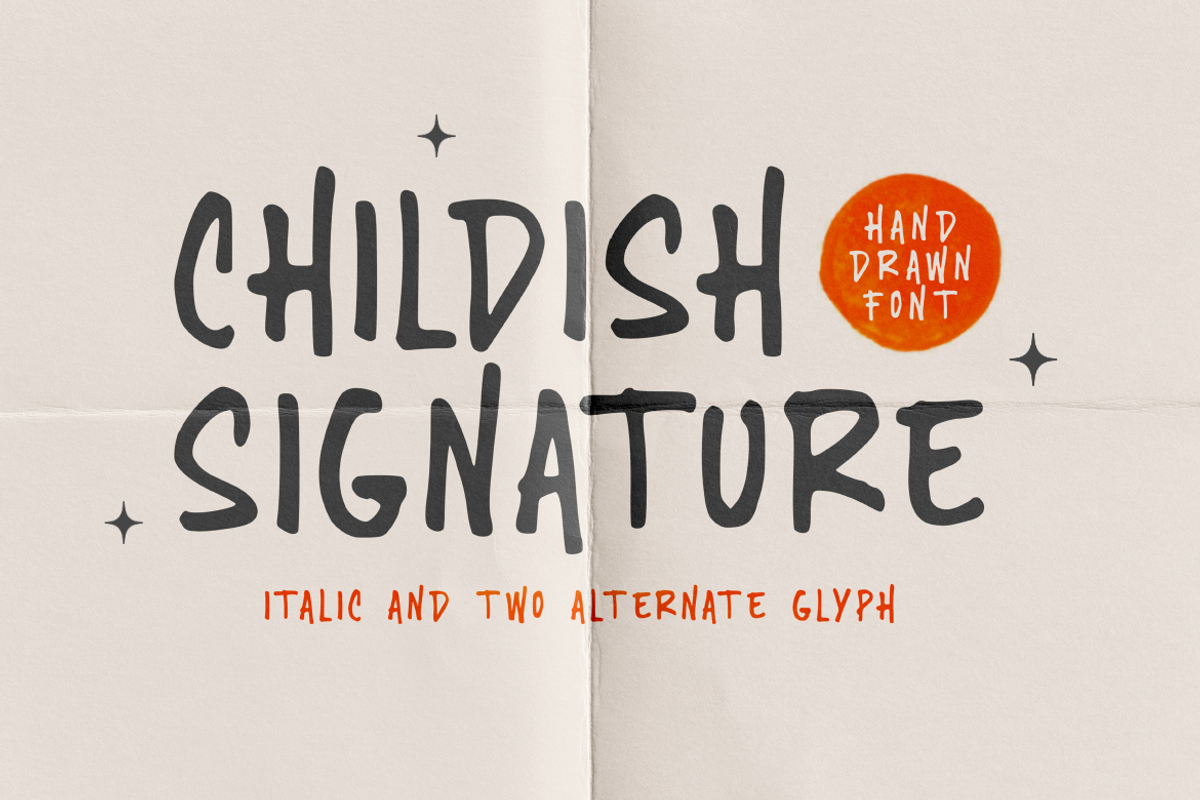
Childish Signature Font Free Download is a playful, handwritten typeface that captures the innocence and charm of a child’s signature. With its natural strokes, friendly letterforms, and whimsical style, this font is perfect for kids’ designs, playful branding, invitations, greeting cards, and fun social media graphics.
The font’s relaxed and carefree vibe makes it ideal for projects that require a personal, lighthearted touch. Whether you’re designing for a children’s brand, creating educational materials, or adding a whimsical flair to your work, Childish Signature Font Free Download adds personality and fun to every design.
Its casual charm works well in both print and digital formats, giving your project a warm, approachable feel.